Awesome Font Generator
"Awesome" is a vibe request more than a specific look. This page leans on bold weight and blocky enclosed letters, the styles that read as confident and attention-grabbing at a glance.
Bold Strike combines bold text with a strikethrough for a punchy, emphasized look; plain Bold and Squared are strong, simpler alternatives.
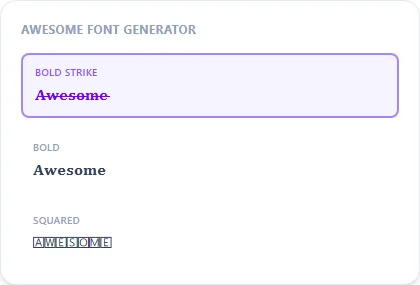
Confidence comes from weight, not decoration
Unlike the softer, decorated styles on the cute or pretty pages, 'awesome' leans on visual weight: bold strokes and solid enclosed shapes that read as confident rather than delicate. That's why this page centers on Bold, Squared, and Bubble Filled rather than anything with sparkle or symbol framing.
What Bold Strike adds on top of plain Bold
Bold Strike layers a strikethrough line through already-bold text, which reads as punchy or emphasized rather than genuinely crossed out — a common way to make a short phrase feel more forceful in a bio or caption.
What is Bold Strike?
Bold text with a strikethrough line added through every character — reads as emphasized or "crossed out for effect" rather than genuinely struck through.
Is there a single "most awesome" style?
It's subjective. Bold and Squared both read as strong, confident choices; try a few and see which fits your text.
Does Bold Strike work well for a username?
It can, though the strikethrough marks add slight visual noise at very small sizes — plain Bold or Squared read cleaner in a tight username field.
What's a good awesome-style pick for a sports or fitness bio?
Bold or Squared both carry the right confident, high-energy tone for that context.